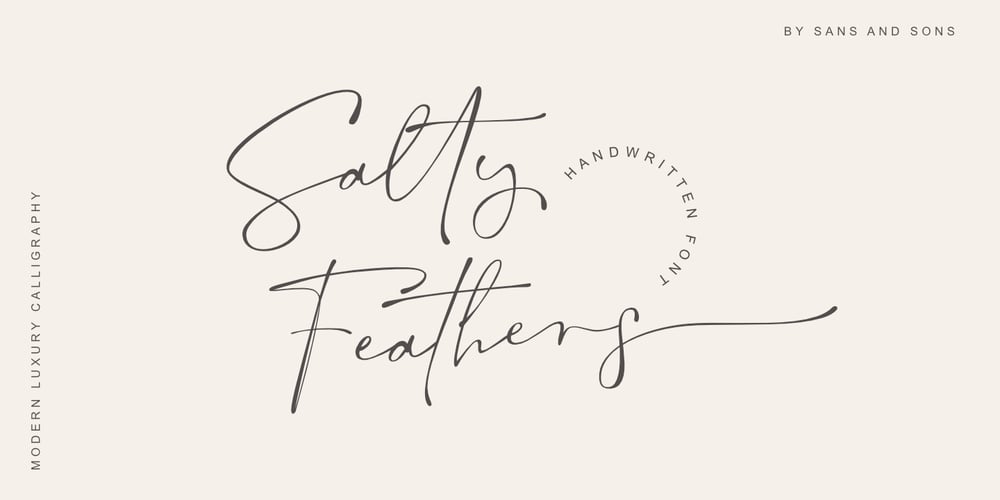
Salty Feathers Font Family was designed by Angga Suwista and published by Sans And Sons. Salty Feathers contains 1 styles and family package options. Salty Feathers includes full set of uppercase and lowercase letters, multilingual symbols, numerals, punctuation, alternates, swash and ligatures. The font has organic smooth wet ink texture with Modern Elegant Style this is perfect for branding, logos, invitation, masterheads and more.Salty Feathers Features : Multilanguange Ligatures Alternates Swash PUA Encoded Language Support:All fonts support English, French, Italian, Spanish, Portuguese, German, Swedish, Norwegian, Danish, Dutch, Finnish, Indonesian, Malay, Hungarian, Polish, Turkish, Slovenian.